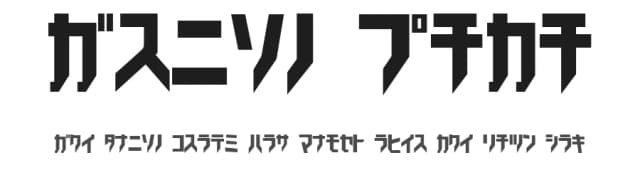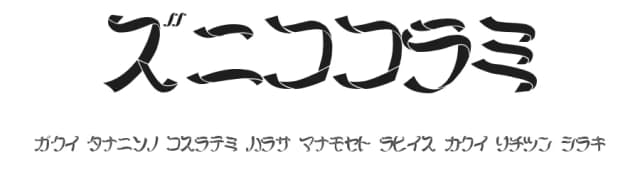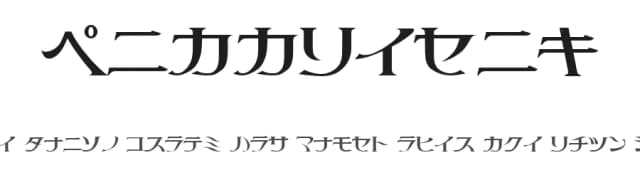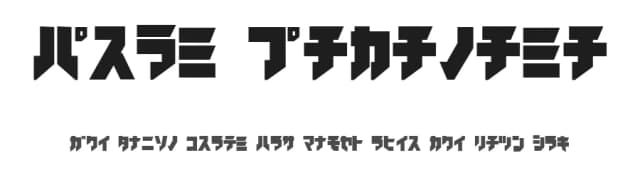
About Key Font
Key is a dingbat font designed by Hiroaki Chiba. It includes 92 glyphs, a bold weight, TTF (TrueType) format, and 1 languages. Key is free to download; check the license details on this page before commercial use. Dingbat fonts like Key work best for icons, ornaments, bullet points, and decorative accents.
Key Font is a versatile dingbats font that works for both headings and body text. Pair it with a contrasting sans-serif or serif font to add visual interest and a clear distinction between titles and body copy.
Key Font
Key Font is a dingbats typeface by Hiroaki Chiba, ideal for logos, invitations, branding, and creative projects.